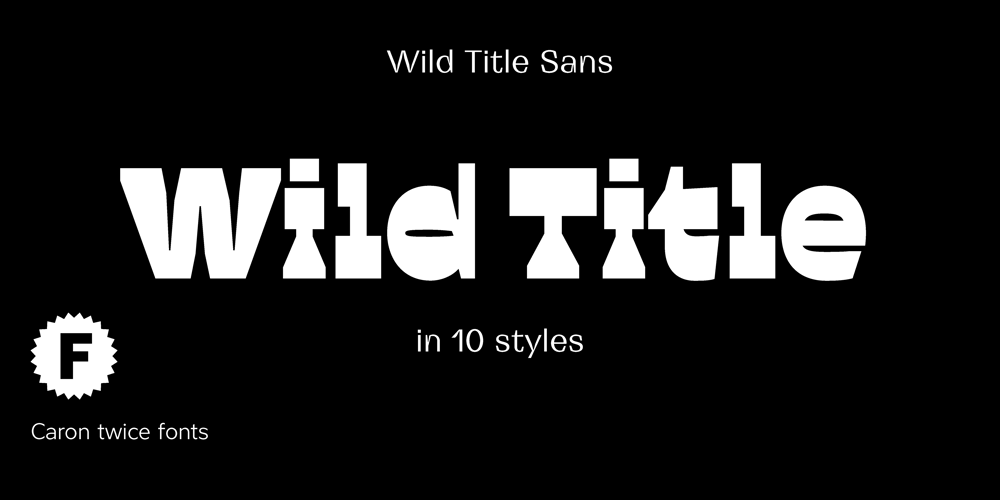
Wild Title Sans Font Family was designed by Martin Činčár and published by Caron twice. Wild Title Sans contains 11 styles and family package options. Wild Title Sans is ideal for projects that are intended to be leisurely and relaxed. The font deliberately destroys the principles of restrained fonts, emphasizing unbridled individuality. The distinct notches in the font are enlarged ink traps, which are used for typesetting in small sizes and usually copy the structure of the character. In this case, the ink trap becomes part of the structure of the character, giving the font a strong and original feature. The weight of individual styles is also distinct: the emphasis on the vertical breaks with traditional approaches to posture. This font literally draws attention to itself. Individual styles are suited to a variety of uses, from small-point texts to bold, distinctive headings.Specimen:http://carontwice.com/files/specimen_Wild_Title_Sans.pdf